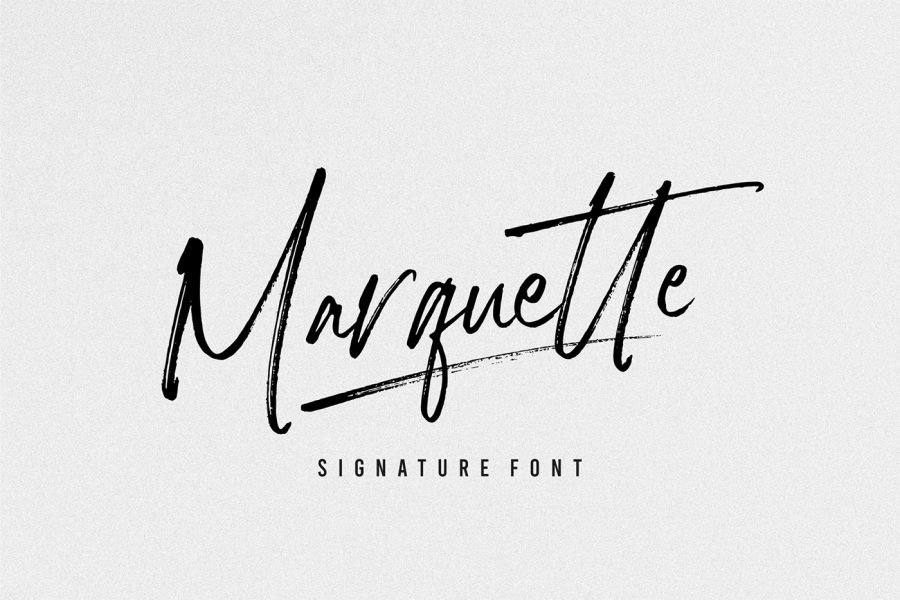
Free Marquette Signature Font
Guess who is back! This author is back again with an amazing signature font which is Free Marquette Signature Font. It is a brush signature font, it matches your works such as wedding invitations, gift cards